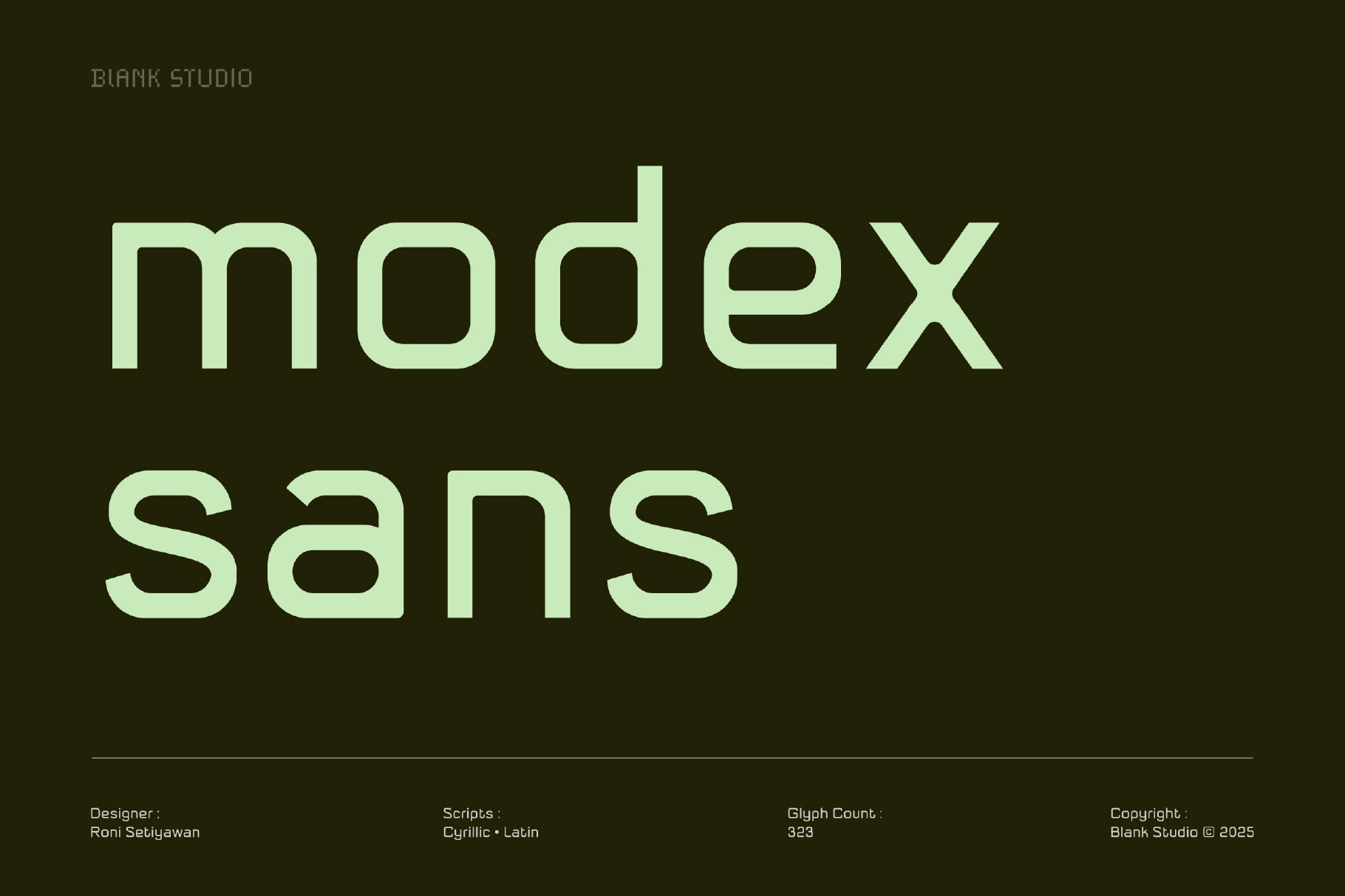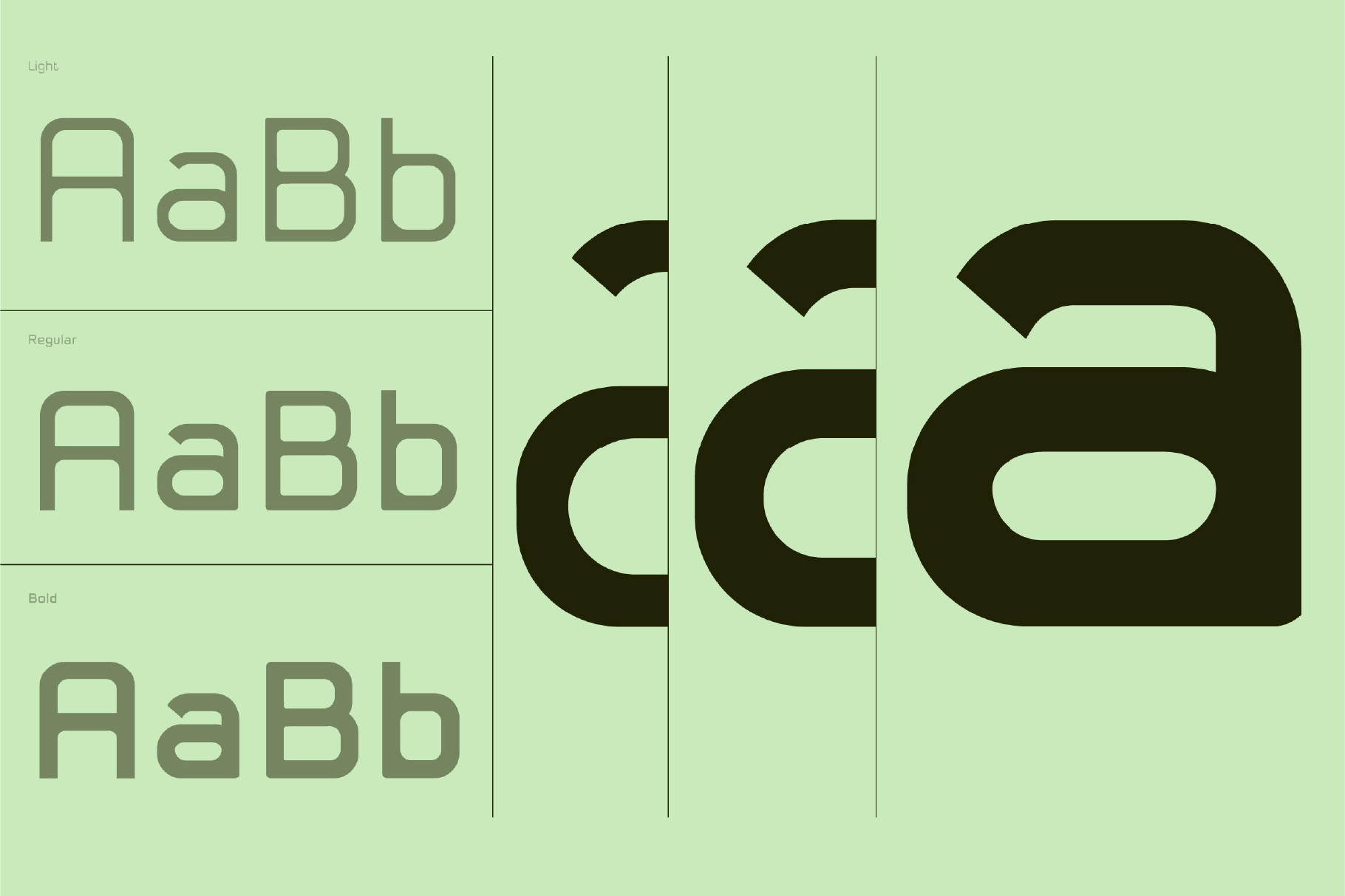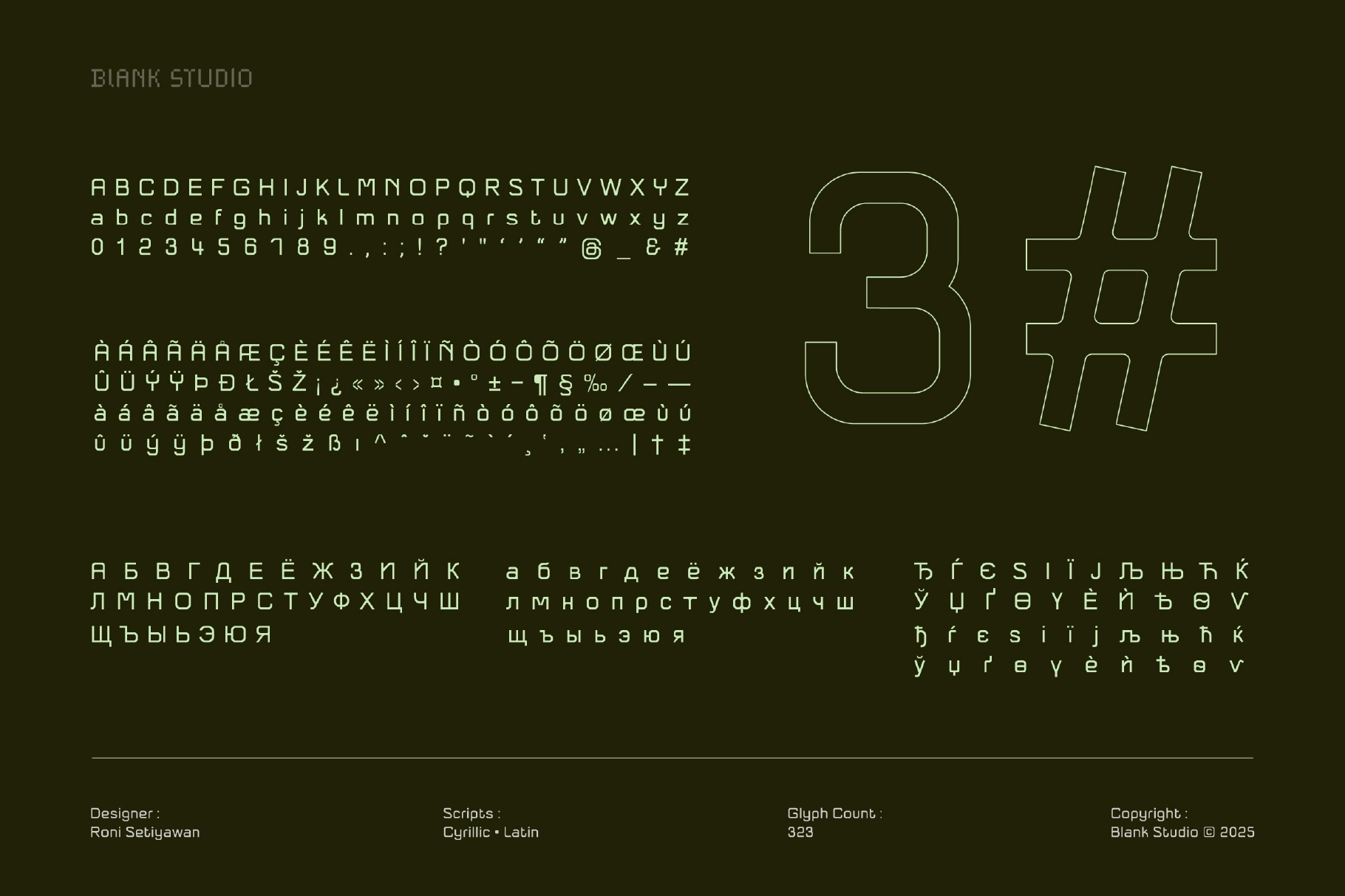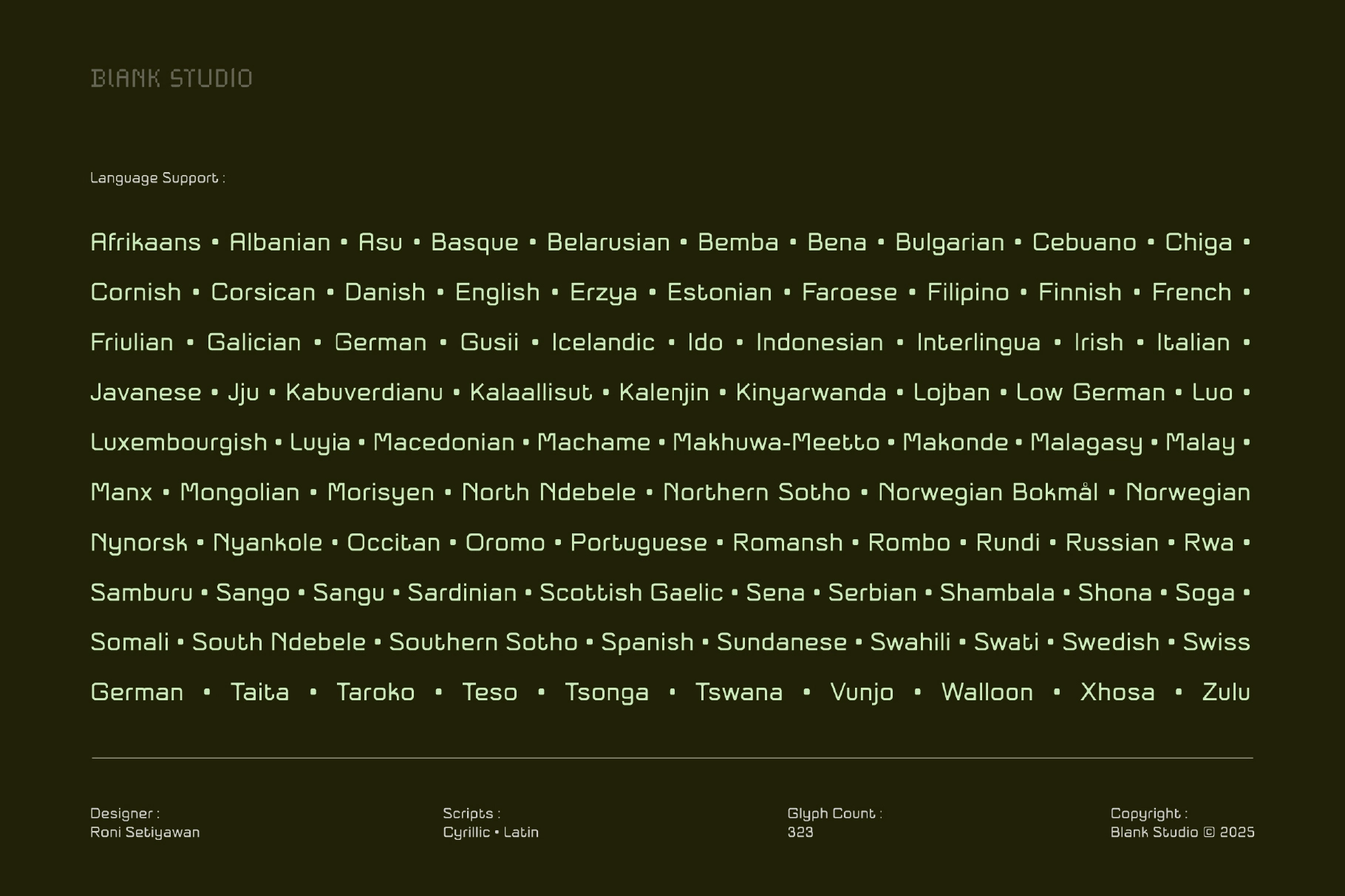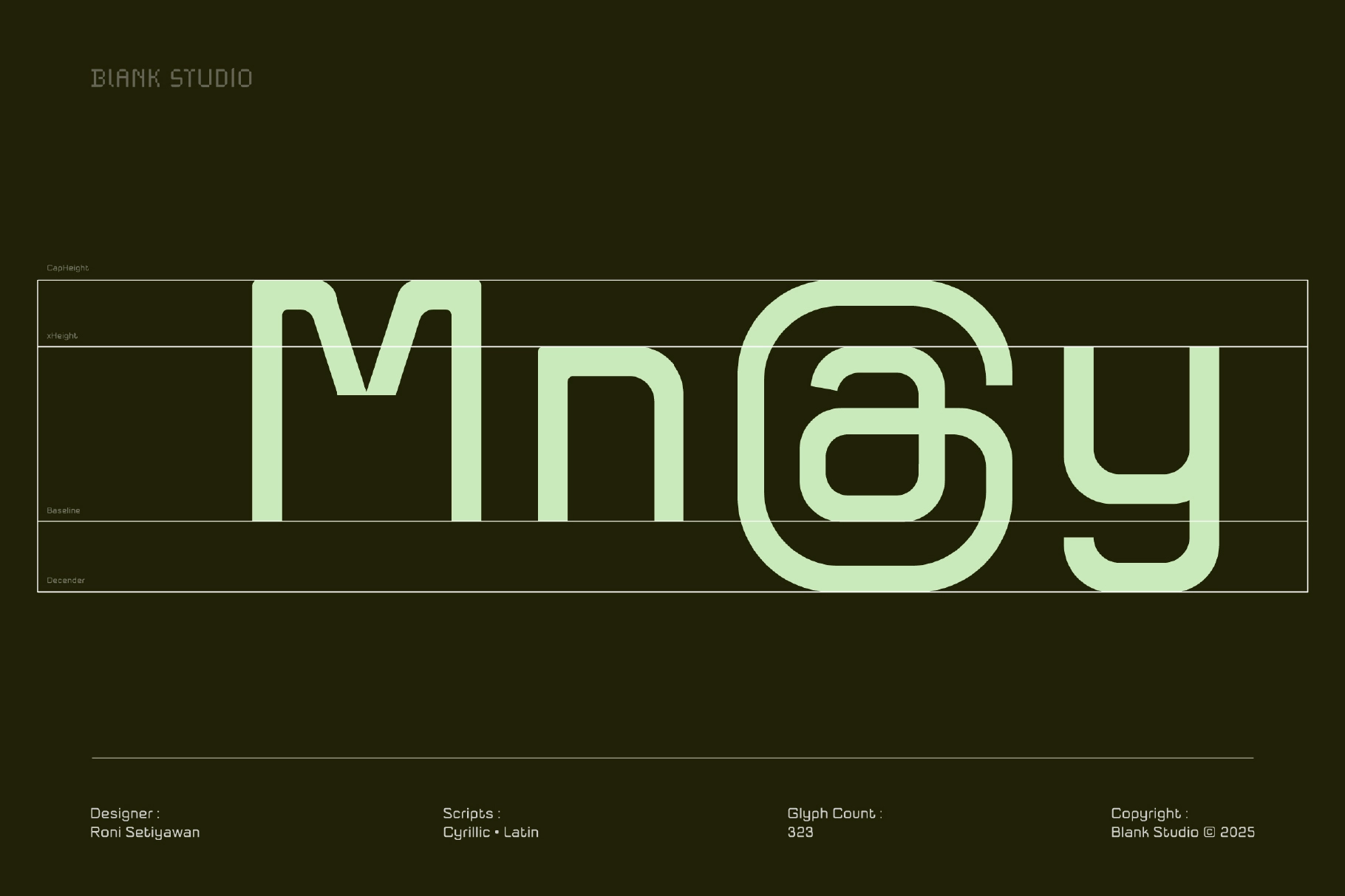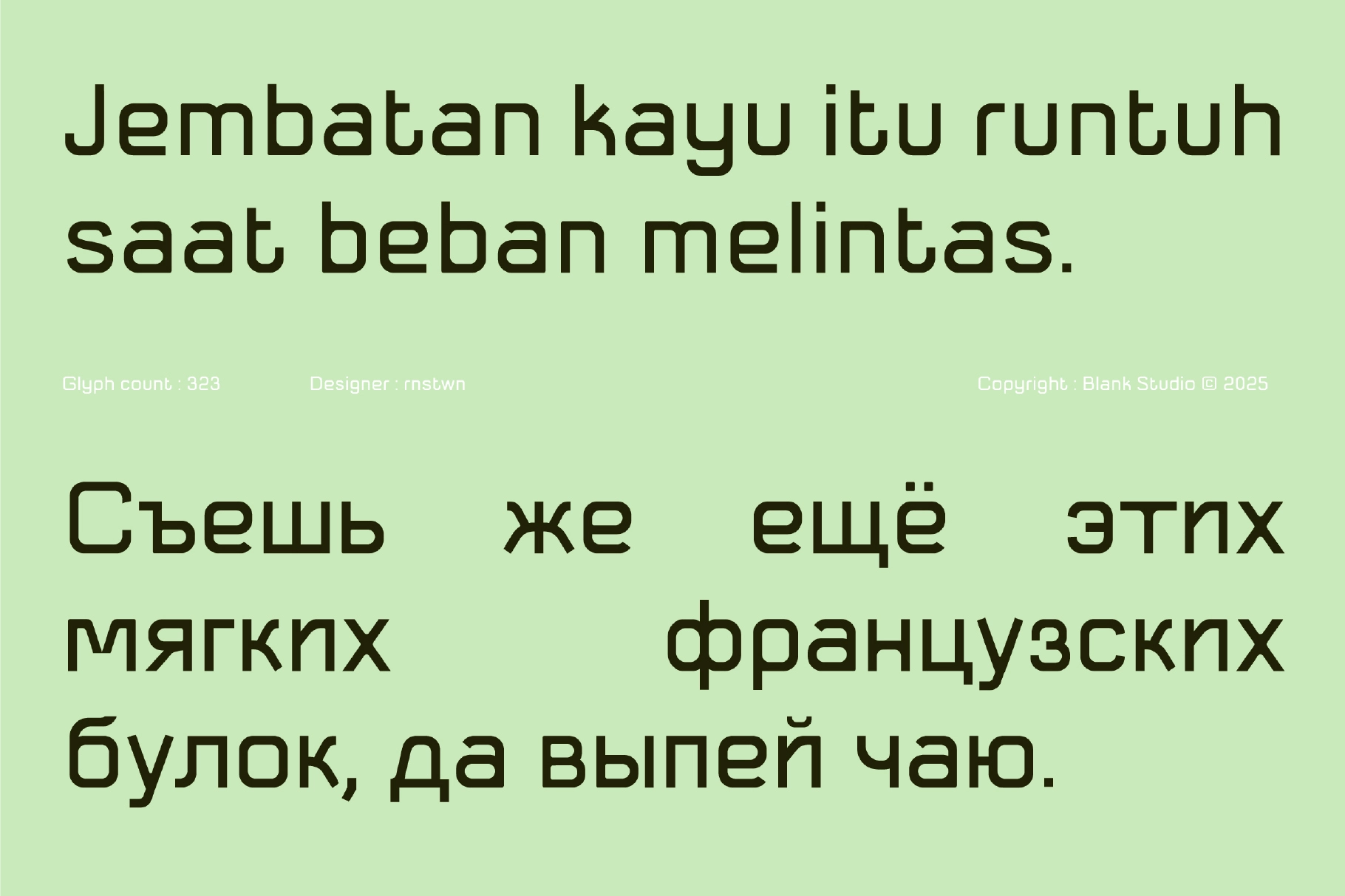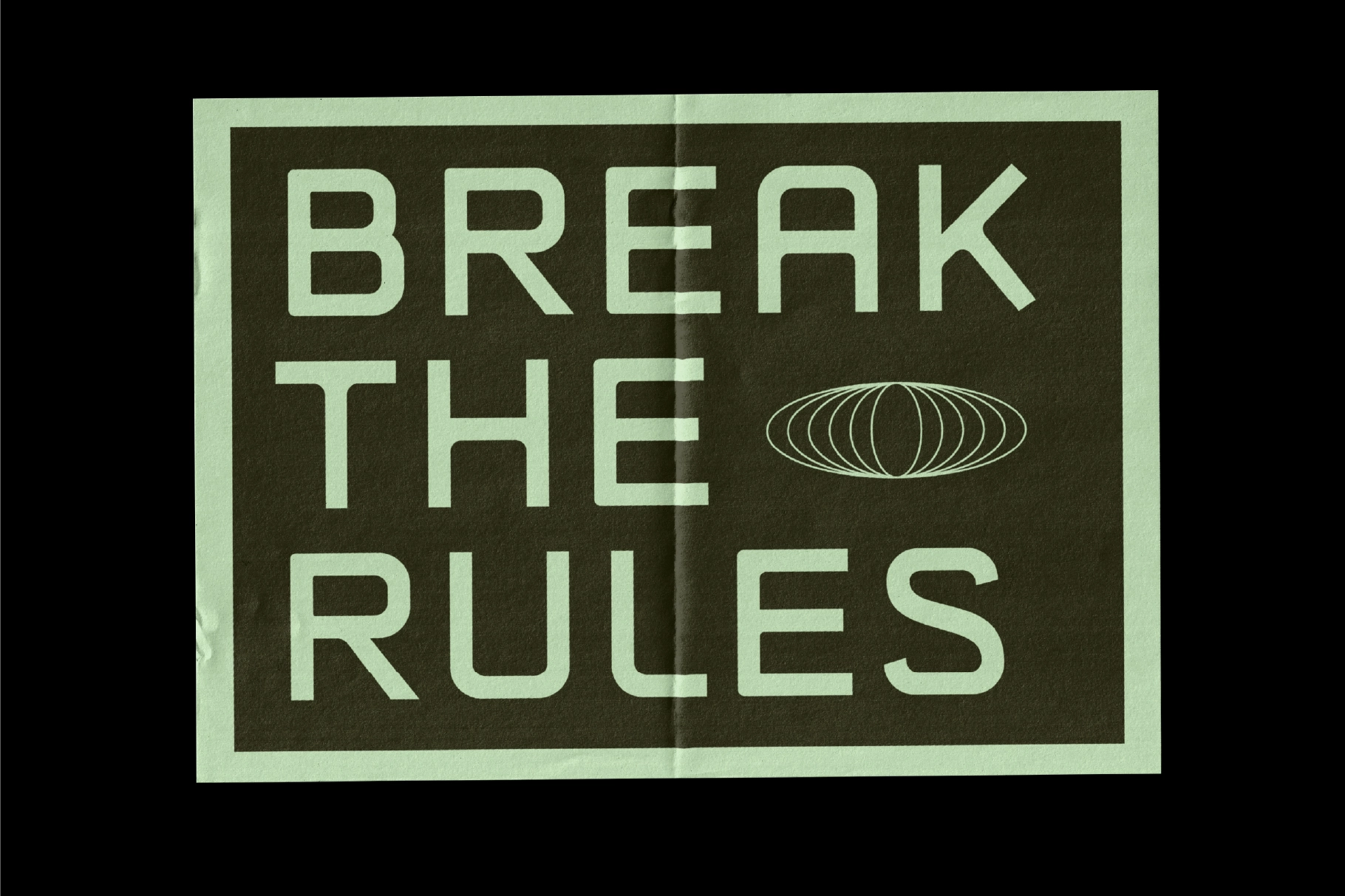
Modex Sans - Geometric Sans Serif Font
Modex Sans is a geometric sans serif font built on a low-contrast skeleton with wide, evenly-stroked letterforms and firmly rounded terminals. The lowercase a is the clearest signal of what the family is doing: its counter closes into an almost-circular shape, pushed to the edge of legibility in a way that reads less like a type convention and more like a deliberate graphic choice. At display size, that construction gives headlines a quiet industrial authority — the kind found on instrument panels, satellite component labels, and close-range signage where the type is part of the object, not applied to it.
Three weights — Light, Regular, and Bold — give the family enough range to handle both display and subhead work within the same layout. Modex works cleanly in UI headers, logotype lockups, tech branding, poster titles, and packaging where the design language runs toward precision over expressiveness. Use it for app landing pages, product spec sheets, startup identities, event programmes, and editorial headers in science or technology contexts.
- 3 styles: Light, Regular, Bold;
- uppercase & lowercase;
- numerals, punctuation & symbols;
- Cyrillic & Latin scripts;
- multilingual support;
- 323 glyphs total